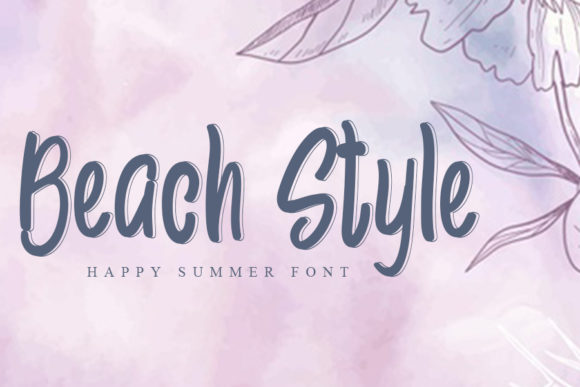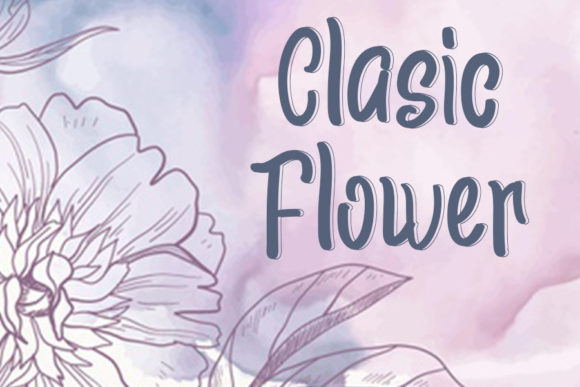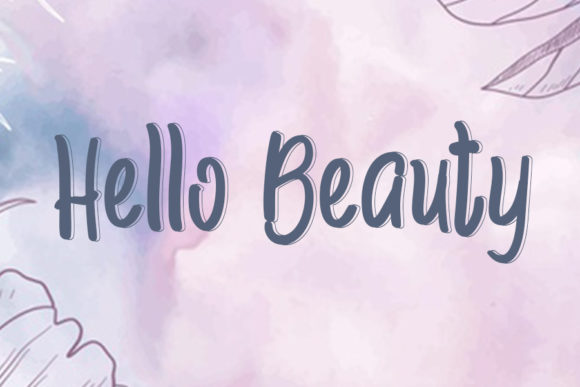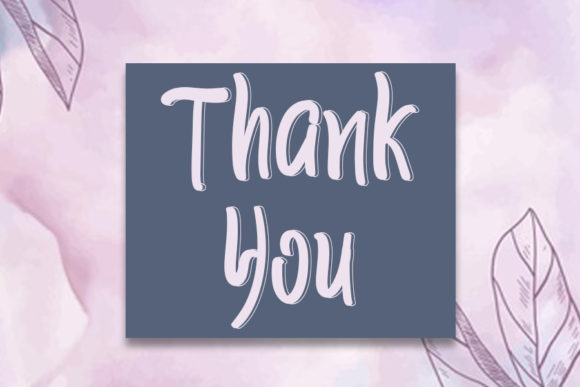
Introduction to Slim Summer Font
Slim Summer is a friendly handwritten font carefully created with a touch of elegance.
Fall in love with its incredibly versatile style and use it to create spectacular designs .
Key Features of Slim Summer Font